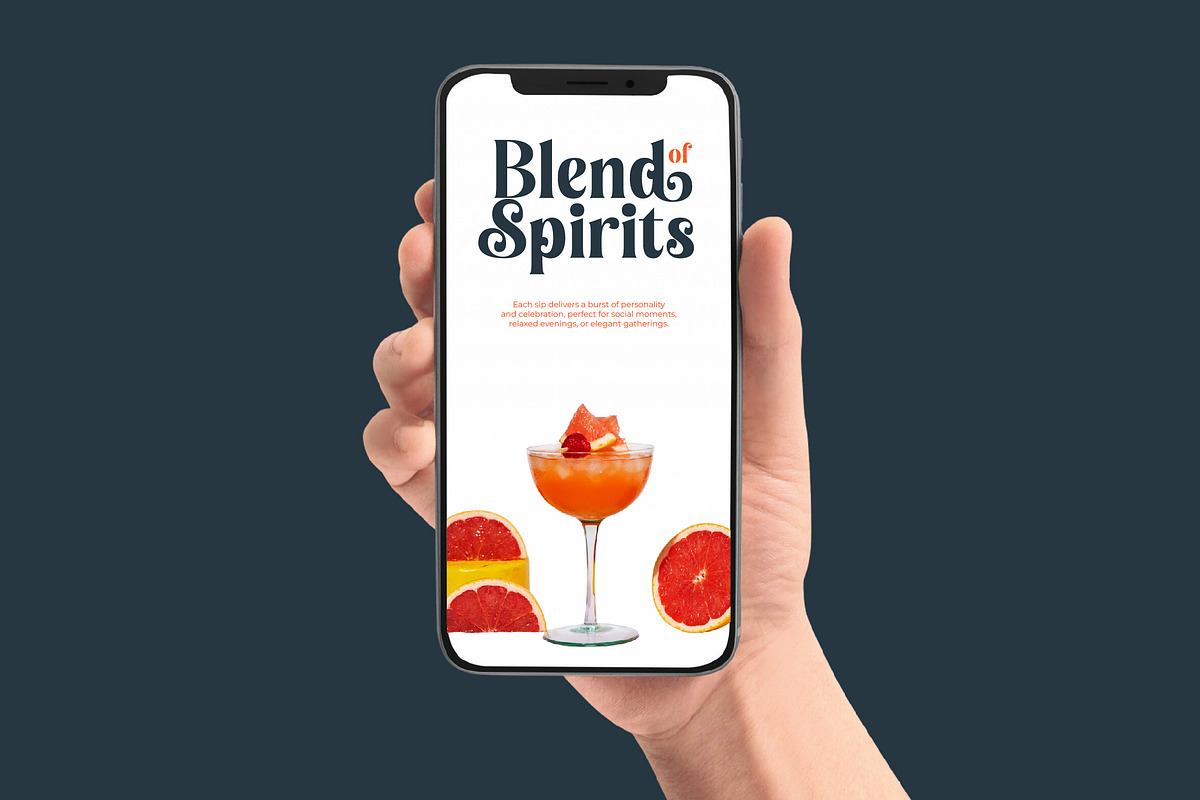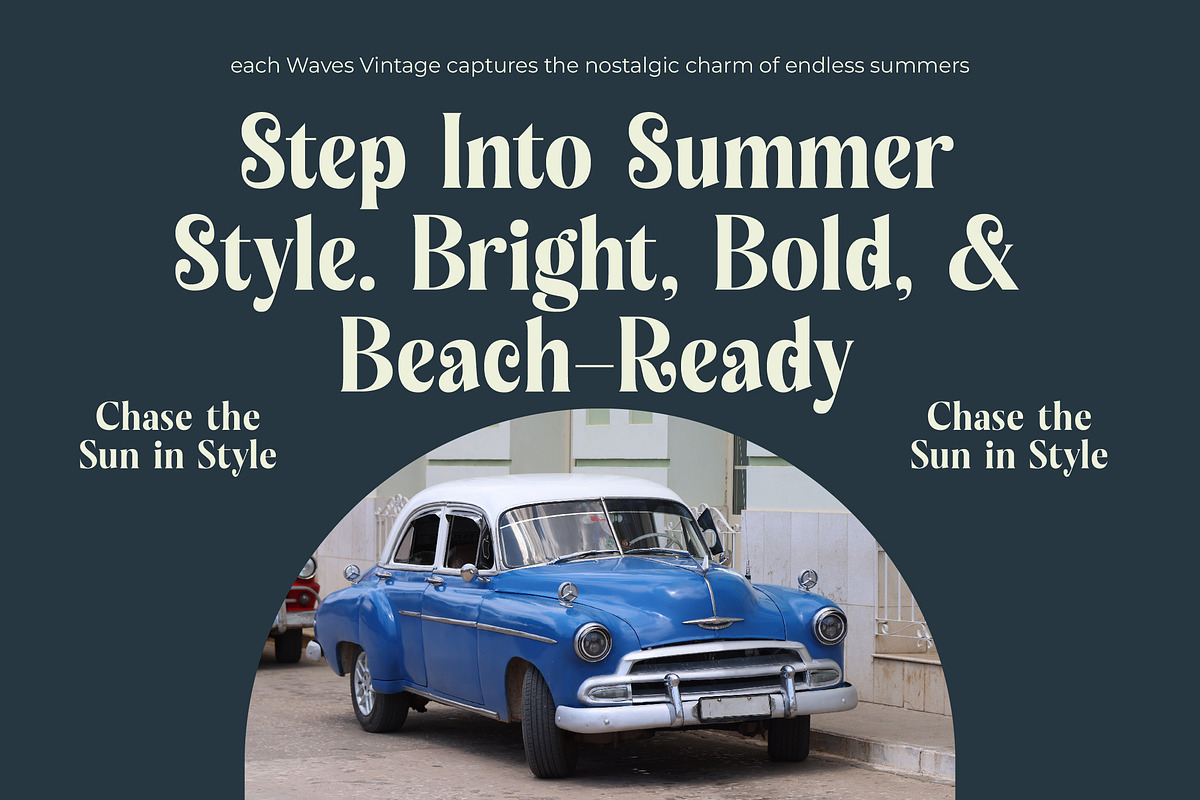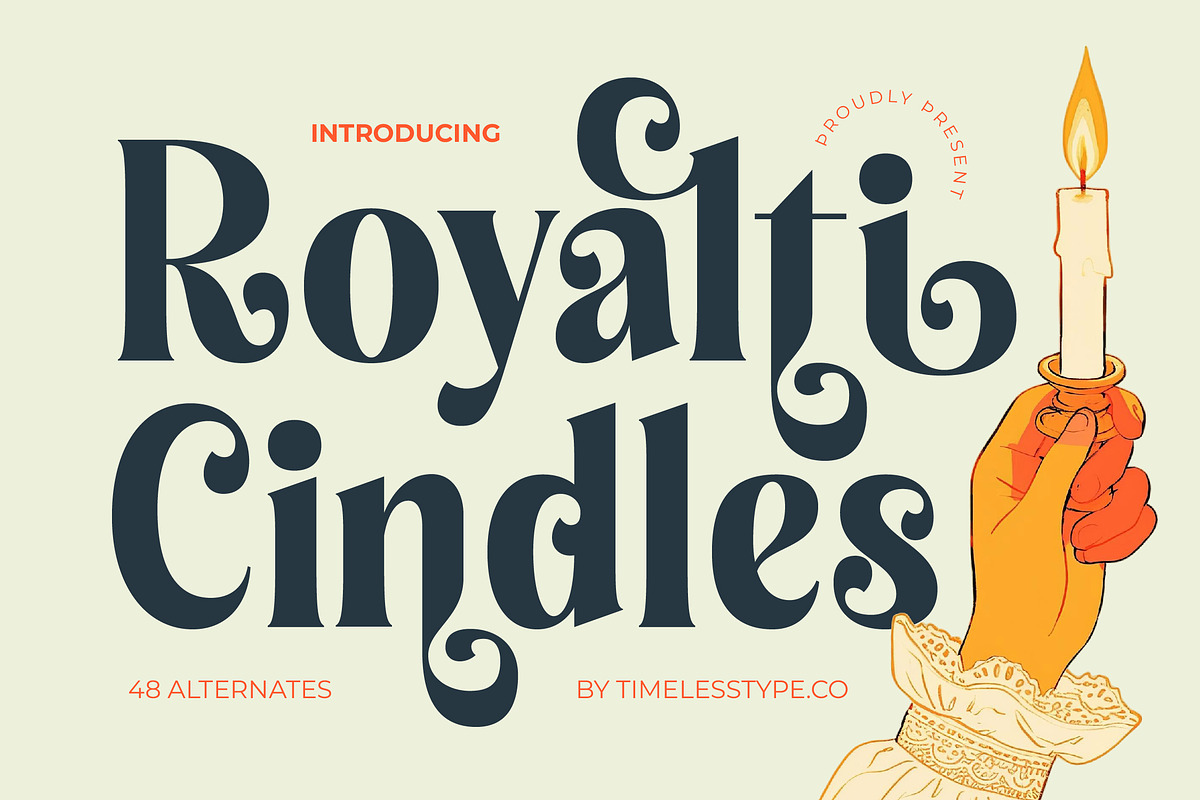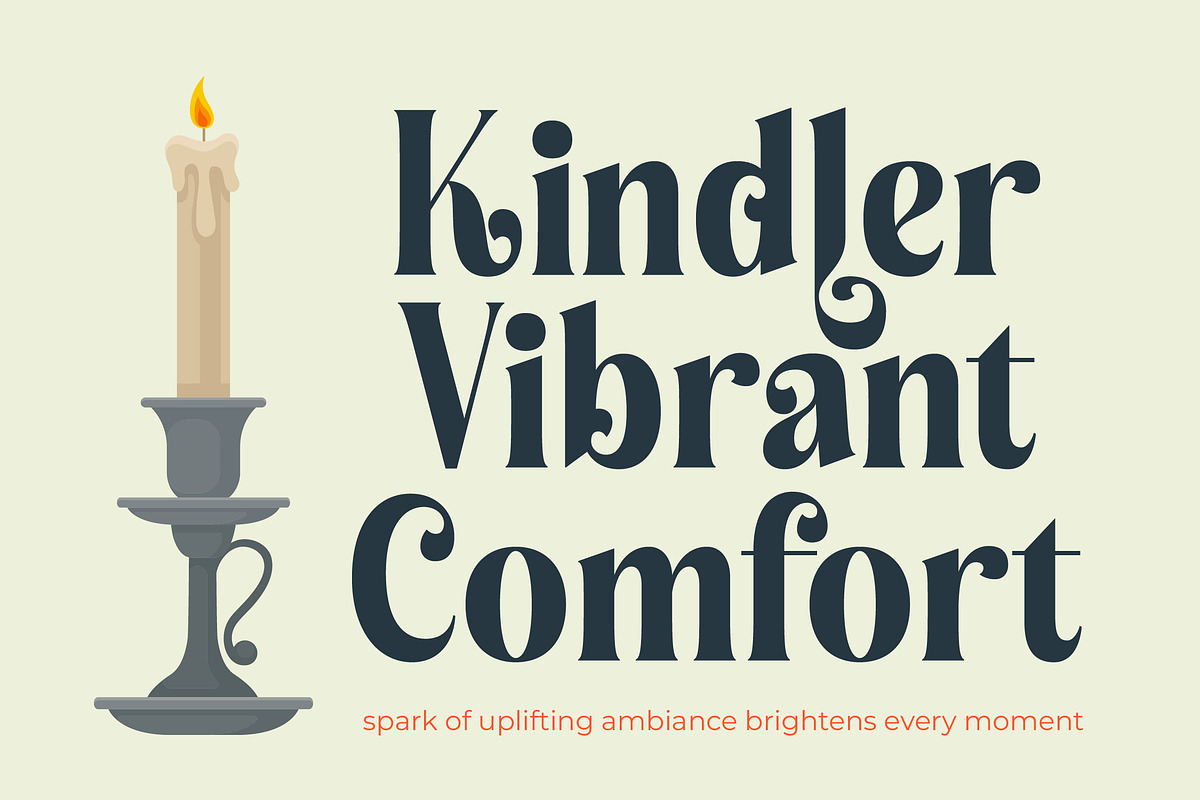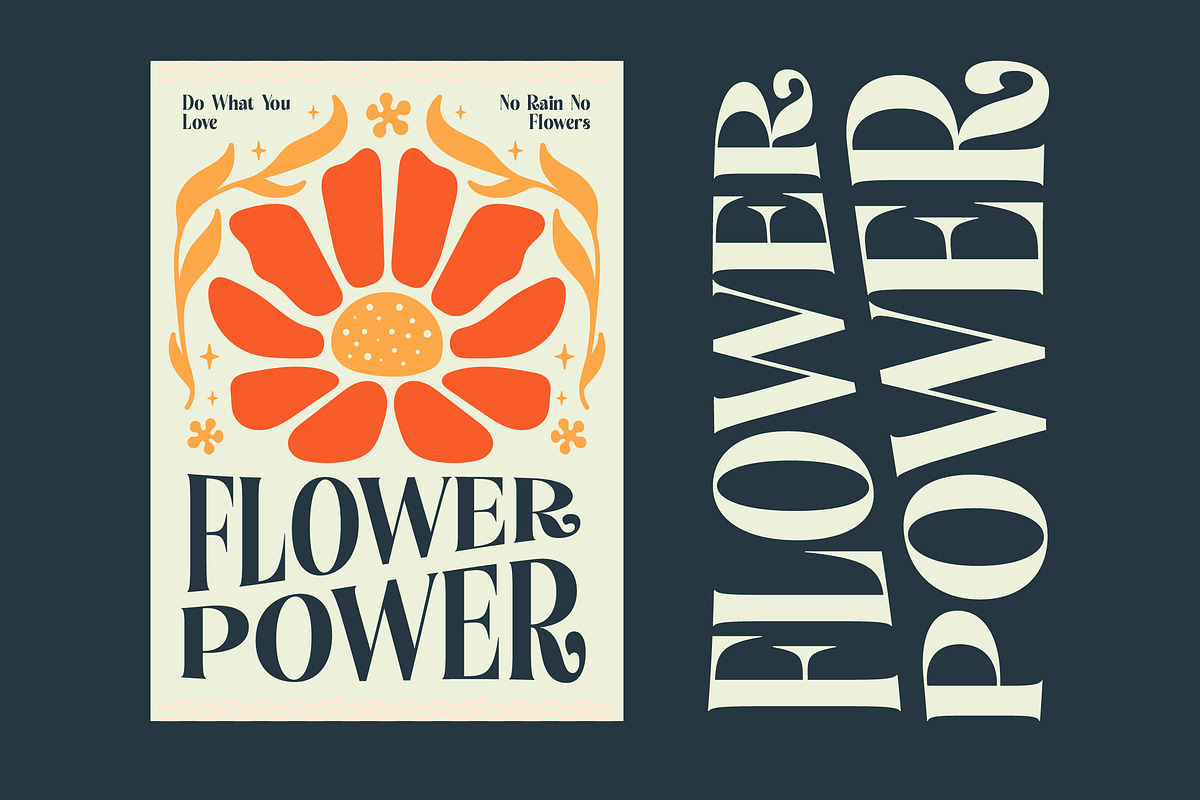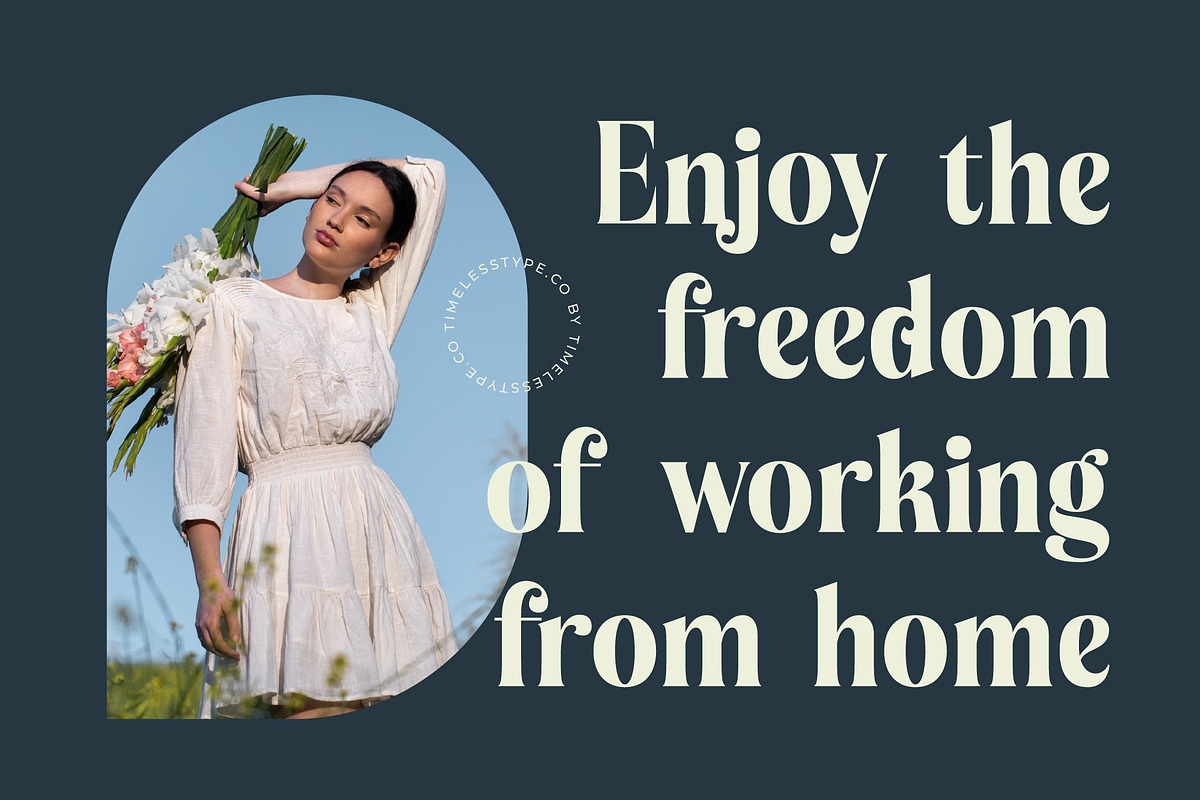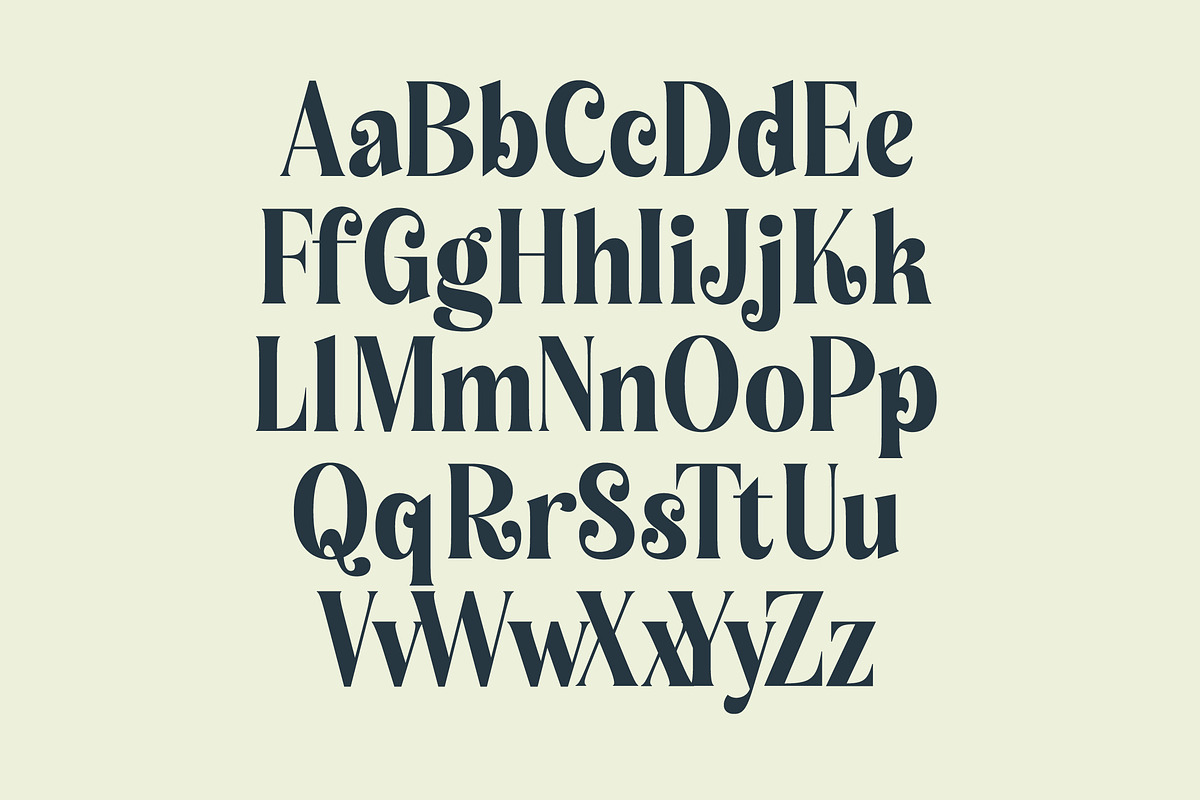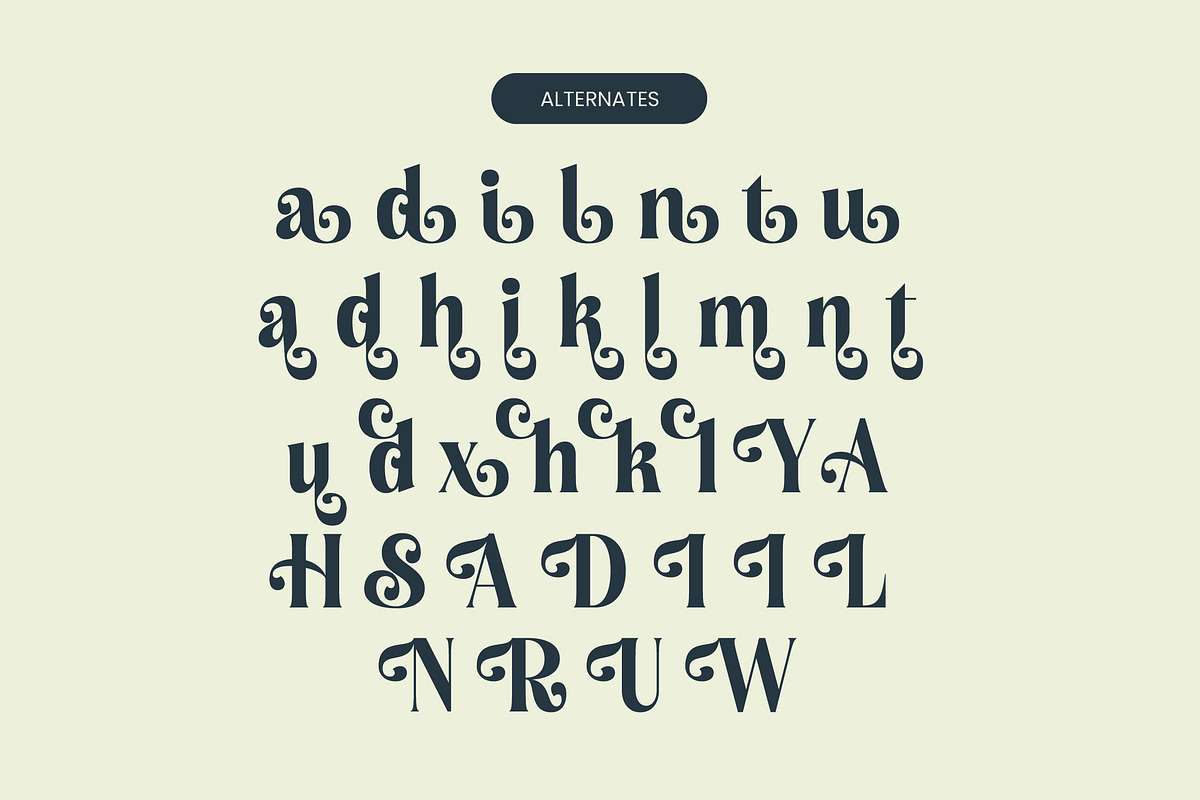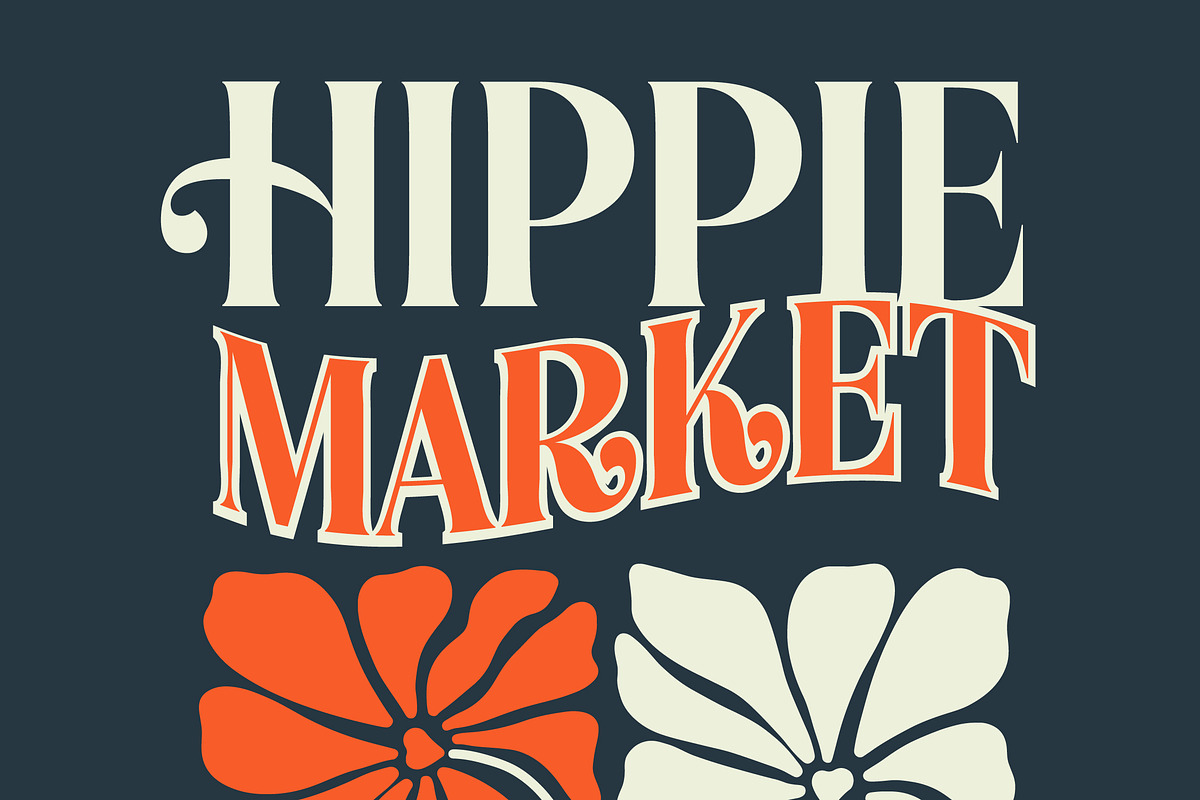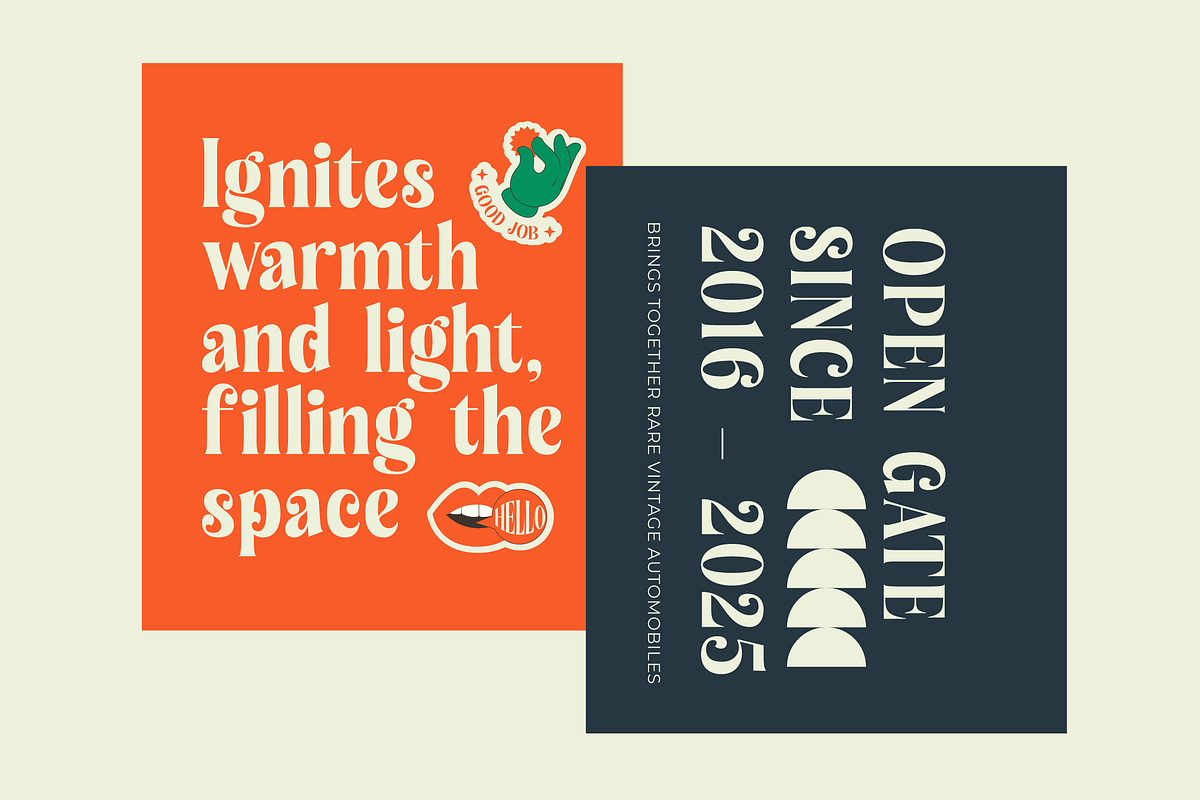
Royalti Cindles Elegant Serif
Step into a world of timeless elegance and refined charm with Royalti Cindles, a font that breathes life into every word it touches through its graceful curves and striking presence. This typeface is designed to captivate the eye and elevate the aesthetic soul of your creative projects with effortless poise.
Inspired by the flickering warmth of candlelight and the regal aesthetics of historic manuscripts, this font draws from a rich heritage of classical letterforms. It captures a sense of old-world mystery while maintaining a crisp, polished look that fits perfectly within the requirements of contemporary design spaces.
The modern serif display character of this typeface offers a unique blend of luxury typography and playful artistry. With its high-contrast serif design, it provides an immediate branding impact that makes it an essential editorial font for designers seeking a balance between formal sophistication and creative expression.
Aligning perfectly with the current modern serif trend, this typeface meets the increasing demand for editorial display fonts that feel both custom-made and highly accessible. It is the ideal choice for high-end projects that require character-driven typography to stand out in a crowded digital landscape.
Whether you are crafting a prestigious logo design or developing a cohesive branding identity, this font excels across diverse physical and digital platforms. It is particularly suited for high-fashion editorial layouts, luxury packaging, romantic wedding stationery, and avant-garde fashion magazines.
The package includes an extensive set of 48 alternates and decorative swashes that allow for endless creative customization. It also features a wide range of functional ligatures and full multilingual support with international characters to ensure your brand message reaches a global audience with clarity.
- Ligature Alternate 48